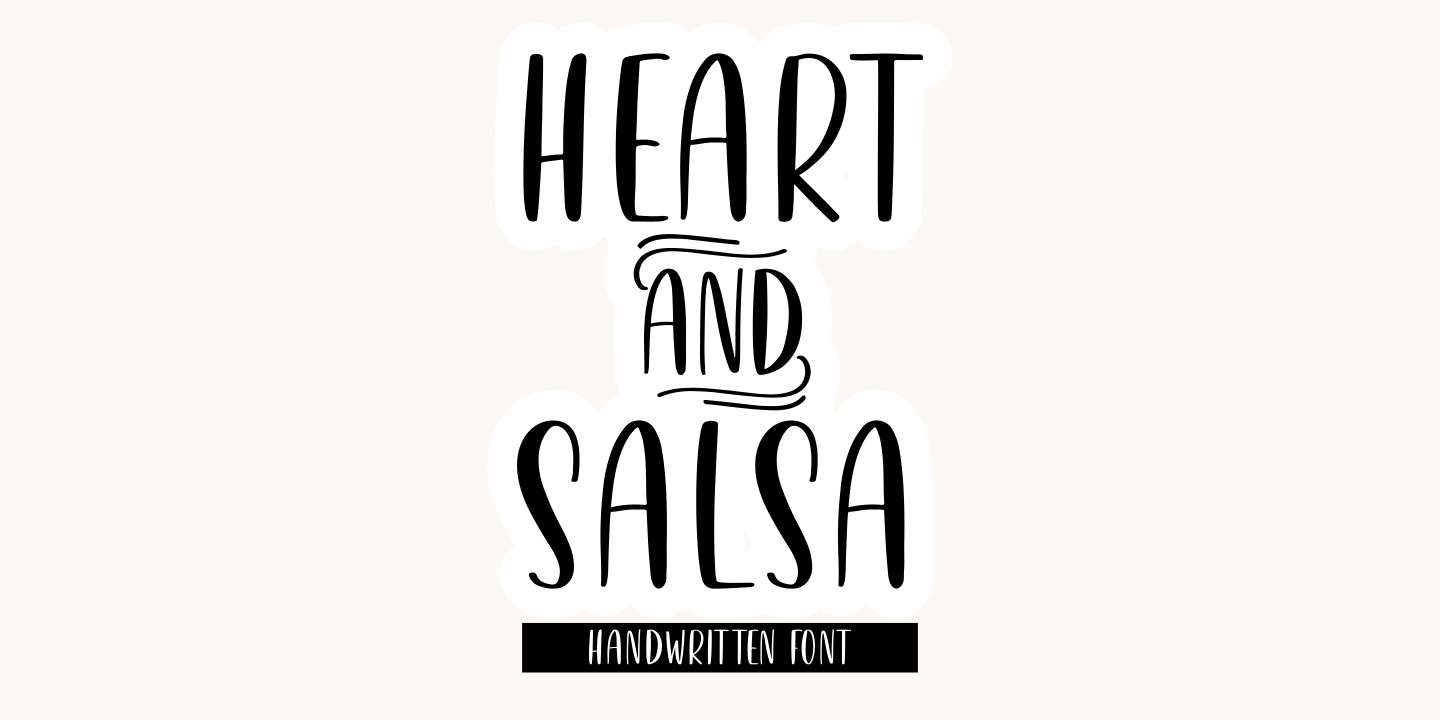
Heart & Salsa Font is perfect for Latin dance studios, romantic restaurant menus, passionate greeting cards, salsa club promotions, wedding invitations with cultural flair, fiesta event posters, vibrant social media campaigns, and spicy food packaging. This passionate typeface excels in both digital and print applications where rhythm, romance, and Latin energy are essential for creating memorable visual experiences.
What makes Heart & Salsa Font exciting is its irresistible fusion of romantic warmth and Latin rhythm. The beautifully crafted letterforms feature flowing curves, passionate flourishes, and dance-inspired movements that instantly evoke the spirit of salsa and the warmth of love. Its expressive personality makes it perfect for brands seeking to establish an emotional connection with audiences through passion and cultural vibrancy. The font's ability to convey both intimacy and celebration creates an enchanting visual dance.
The Heart & Salsa Font family includes various passionate styles: Regular, Bold, Script, Decorative, Shadow, and Ornamental versions with special heart symbols, musical notes, and Latin-inspired decorative elements. Each family member maintains the romantic essence while offering different levels of emotional intensity. The comprehensive character set supports multilingual coverage including Spanish accents, special characters, and cultural symbols that enhance authentic Latin communication.
For restaurant branding, dance event promotion, or romantic marketing campaigns, Heart & Salsa Font Free Download provides the perfect typography solution for capturing hearts and inspiring movement. Its handcrafted quality and passionate character make it an essential resource for designers who want to infuse their work with genuine Latin spirit and create designs that make people feel the rhythm of love.